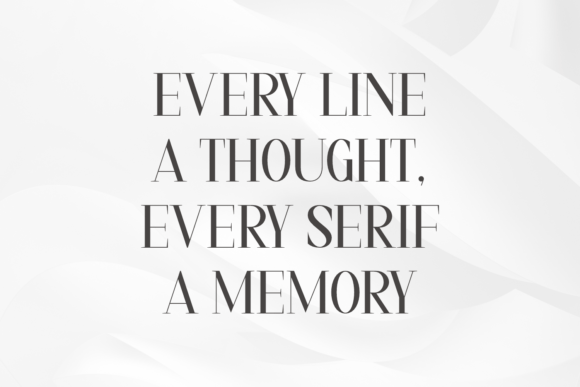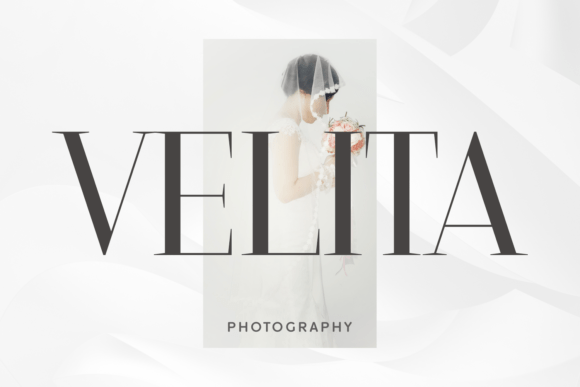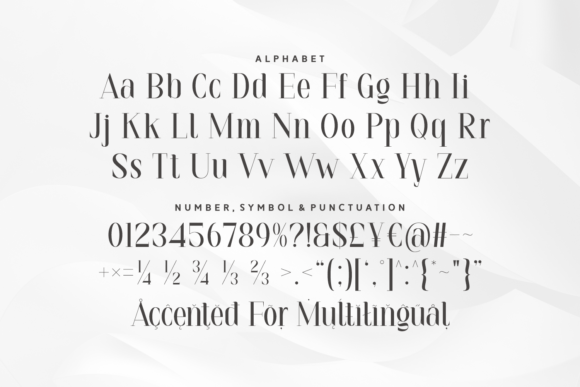
Introduction to Hoska Font
Have you ever found yourself stuck in a creative rut, struggling to find the perfect font to elevate your design project? I know I have. It’s like searching for the missing piece of a puzzle – you know it’s out there, but you can’t quite put your finger on it. That’s why I’m excited to introduce you to the Hoska Font, a game-changing design resource that’s about to become your new go-to.
The Hoska Font is a stunning serif typeface that seamlessly blends high-fashion aesthetics with a modern twist. With its sleek letterforms and subtle curves, it’s the perfect choice for luxury branding, editorial design, wedding invitations, beauty packaging, and social media graphics. What sets it apart, though, is its unique personality – thanks to decorative swashes that add a touch of whimsy and sophistication.
Key Features of Hoska Font
- Comes with a transparent background, making it ideal for use on various backgrounds and designs.
- Unique, modern design that adds a touch of elegance to any creative project or design.
- Supports a wide range of languages, ensuring that it can be used in various design projects and applications.
Honest Review: Hoska Font
I recently came across the Hoska Font, a free design resource that’s been making waves in the creative community. As a designer, I was eager to put it to the test and see if it lived up to the hype.
- ✨ High-quality font with crisp lines and smooth curves
- ✨ Transparent background, making it easy to layer and combine with other design elements
- ✨ Perfect for creative projects that require a unique and eye-catching font
The Hoska Font is a great addition to any designer’s toolkit. Its versatility and high quality make it a great choice for a wide range of projects, from logos and branding to digital products and publications.
- ⚠️ Limited character set, which may be a issue for designers working on complex projects
- ⚠️ Not as customizable as some other fonts, which may limit its use in certain situations
Overall, I’m impressed with the Hoska Font. Its strengths far outweigh its limitations, making it a valuable resource for designers. If you’re looking for a high-quality, unique font for your next creative project, the Hoska Font is definitely worth checking out.
Hoska Font
Tips for Getting the Most Out of Hoska Font
To get the most out of the Hoska Font, use it in combination with other design elements to create a cohesive look. Experiment with different font sizes, colors, and styles to find the perfect combination for your creative project. Don’t be afraid to try out new things and see how the Hoska Font works in different contexts.
Common Use Cases for Hoska Font
The Hoska Font is perfect for a variety of creative projects, including wedding invitations, business cards, and social media graphics. Its elegant and sophisticated design makes it ideal for formal events, while its high-quality design resource makes it perfect for any project that requires a professional look.